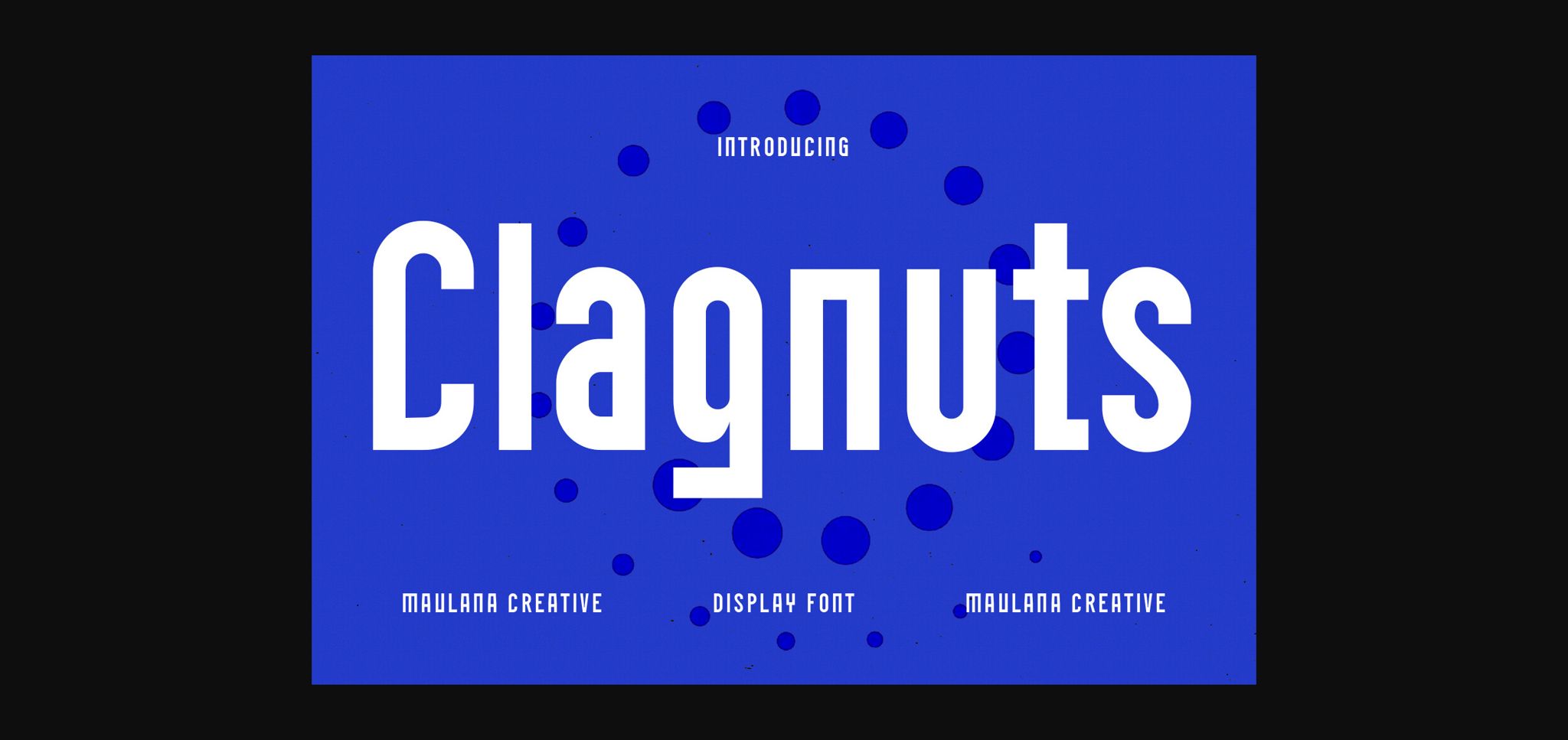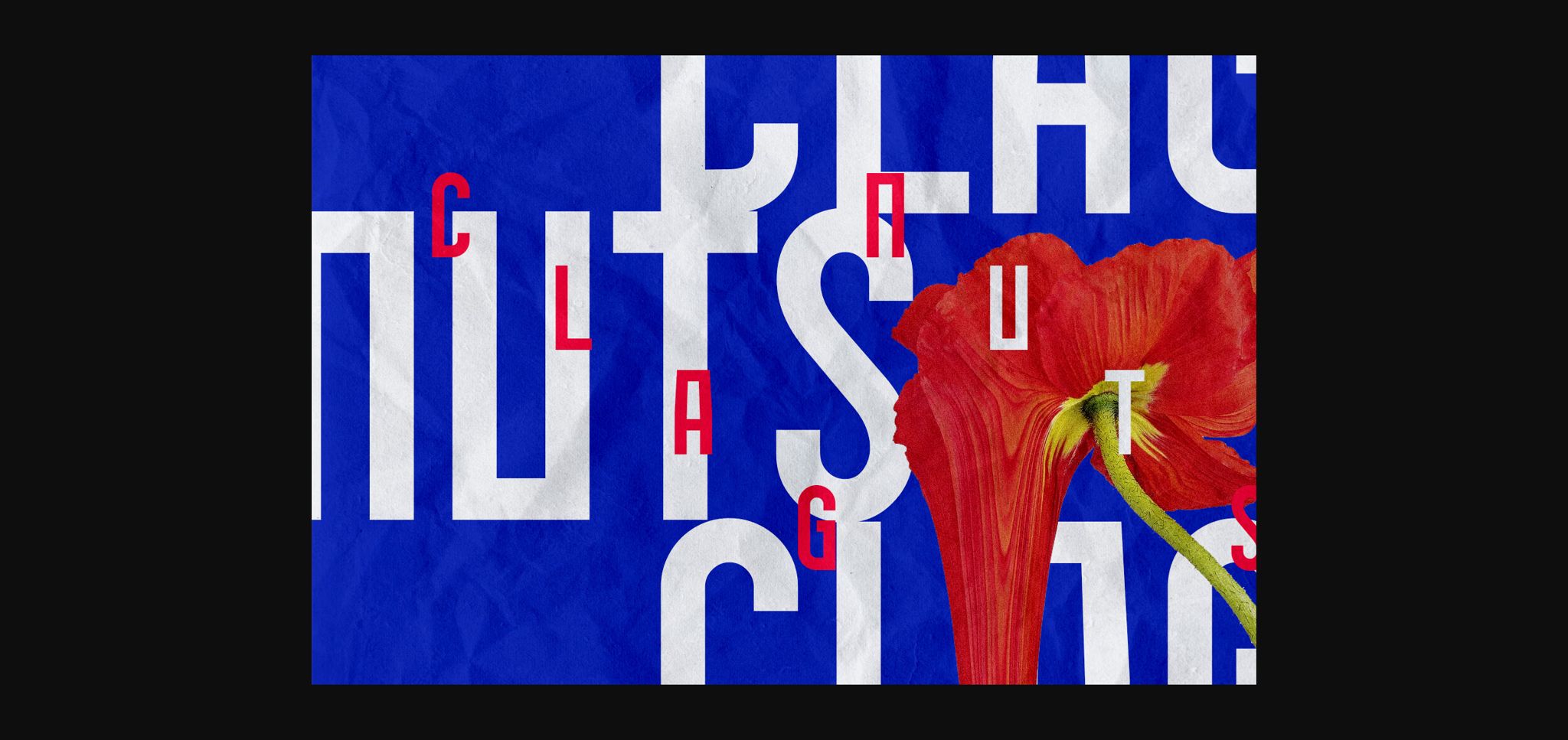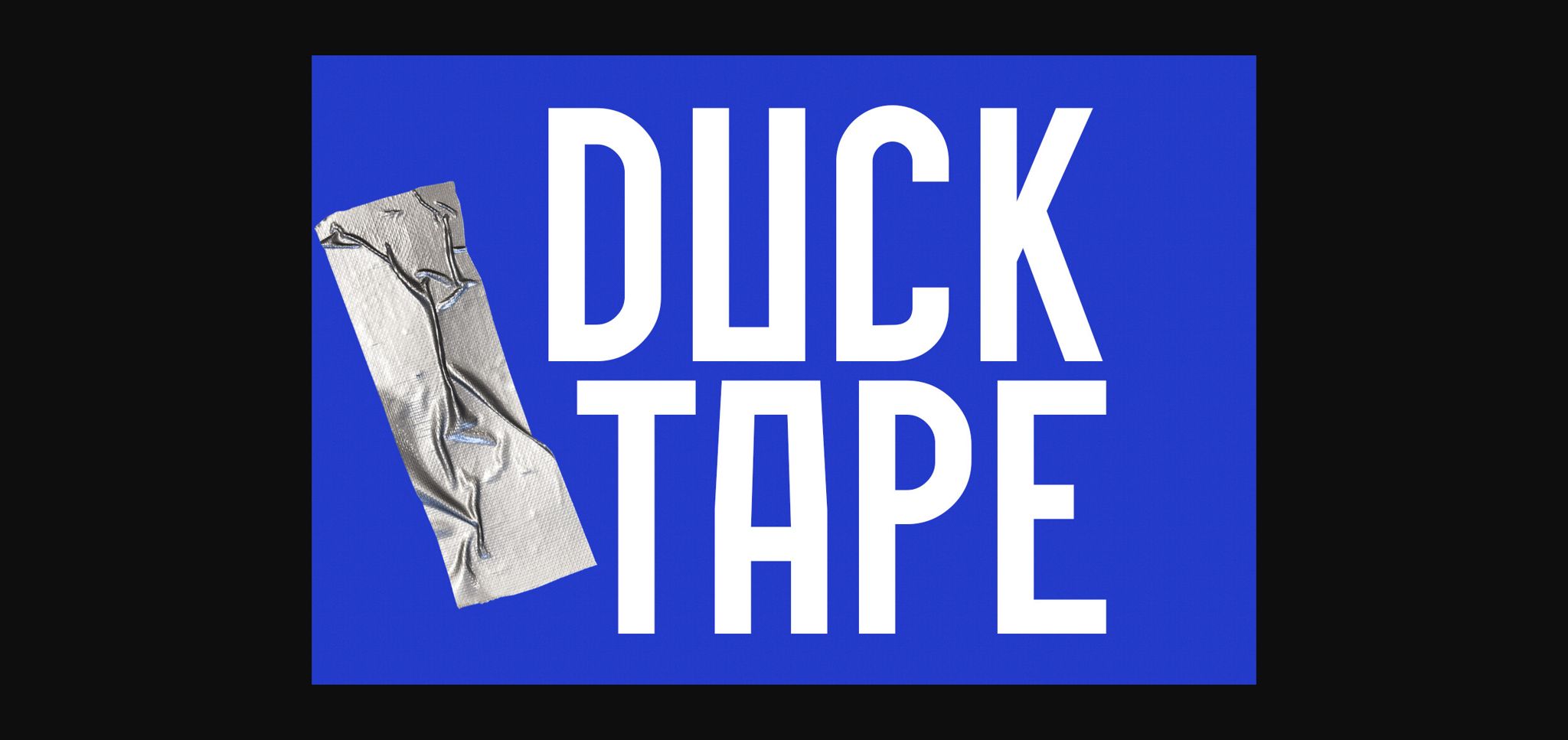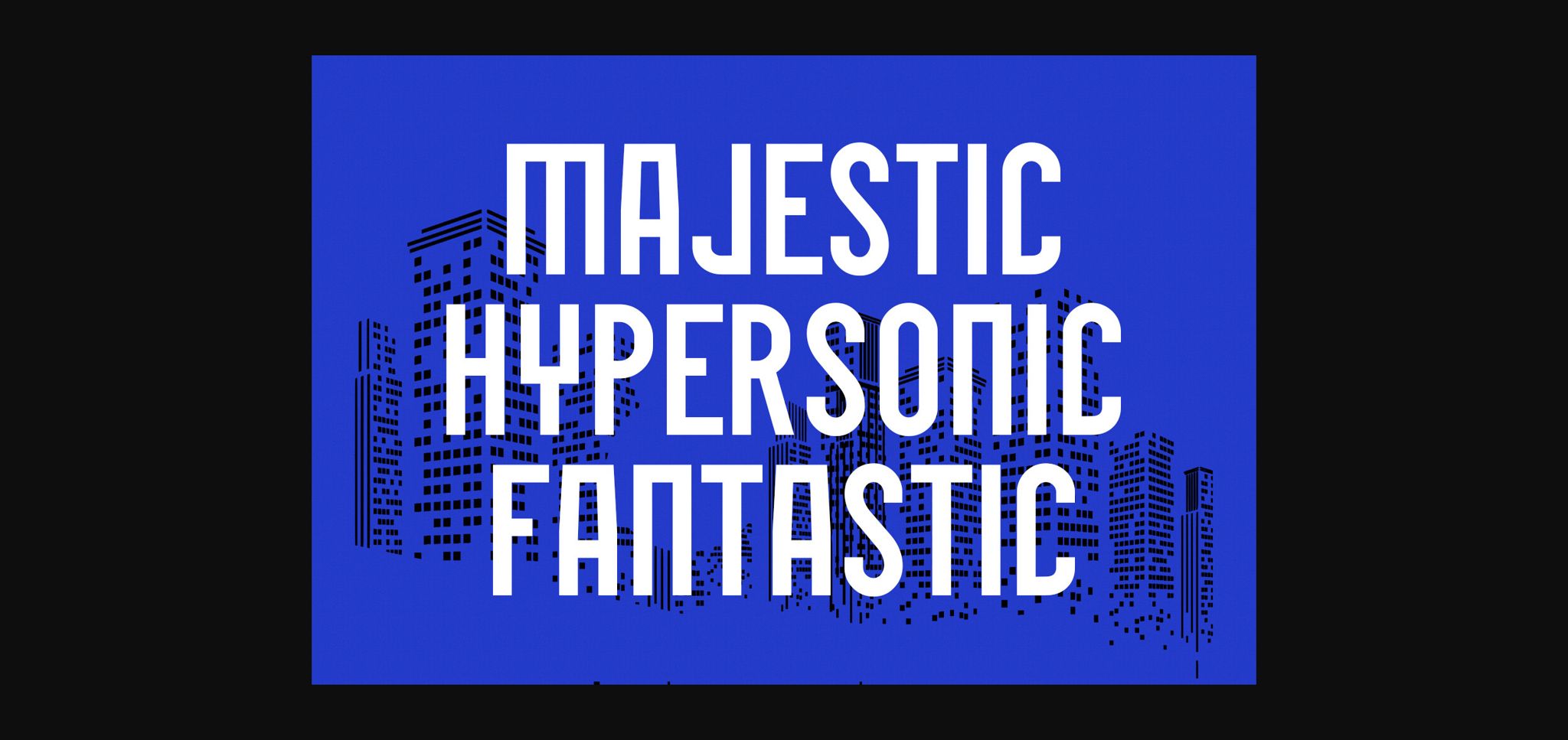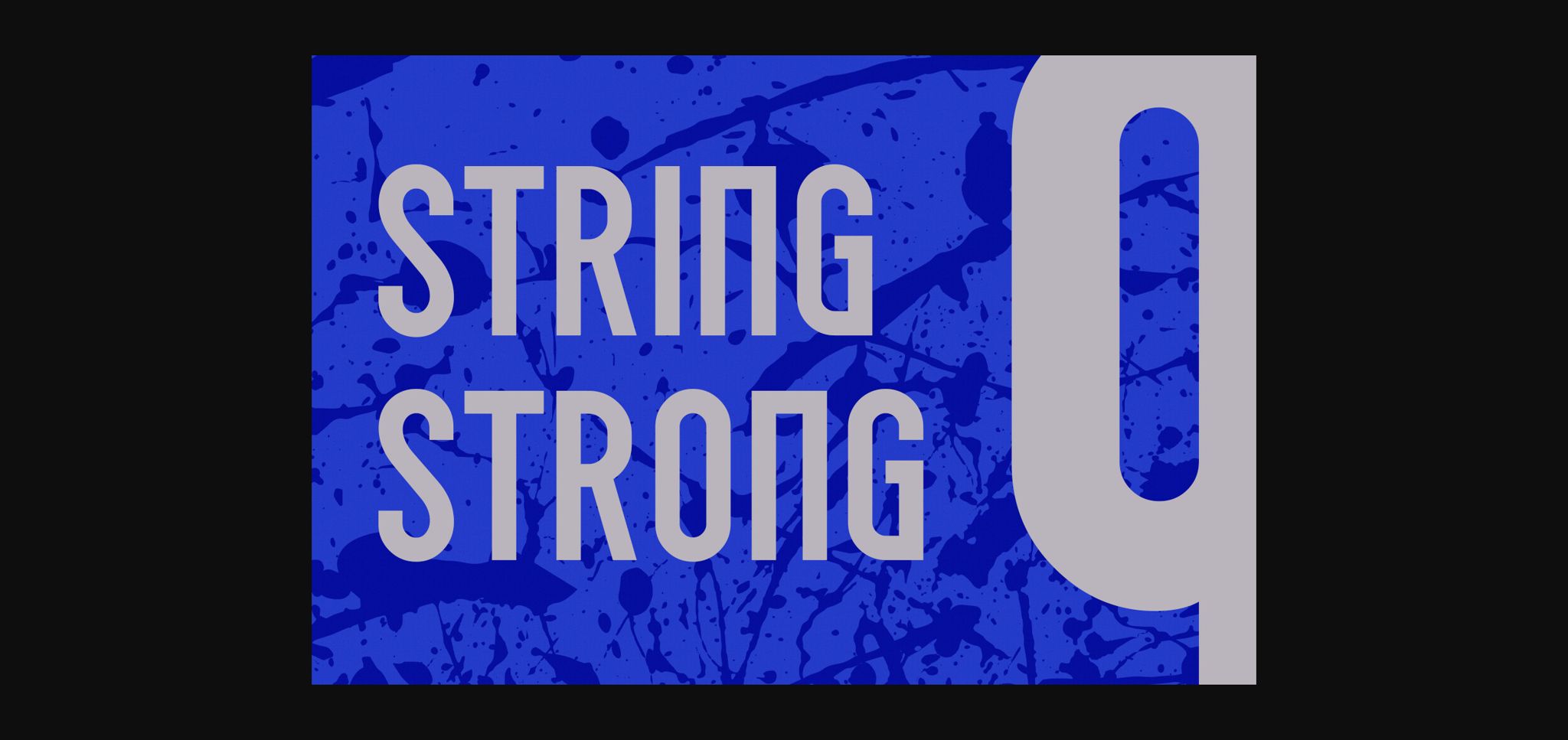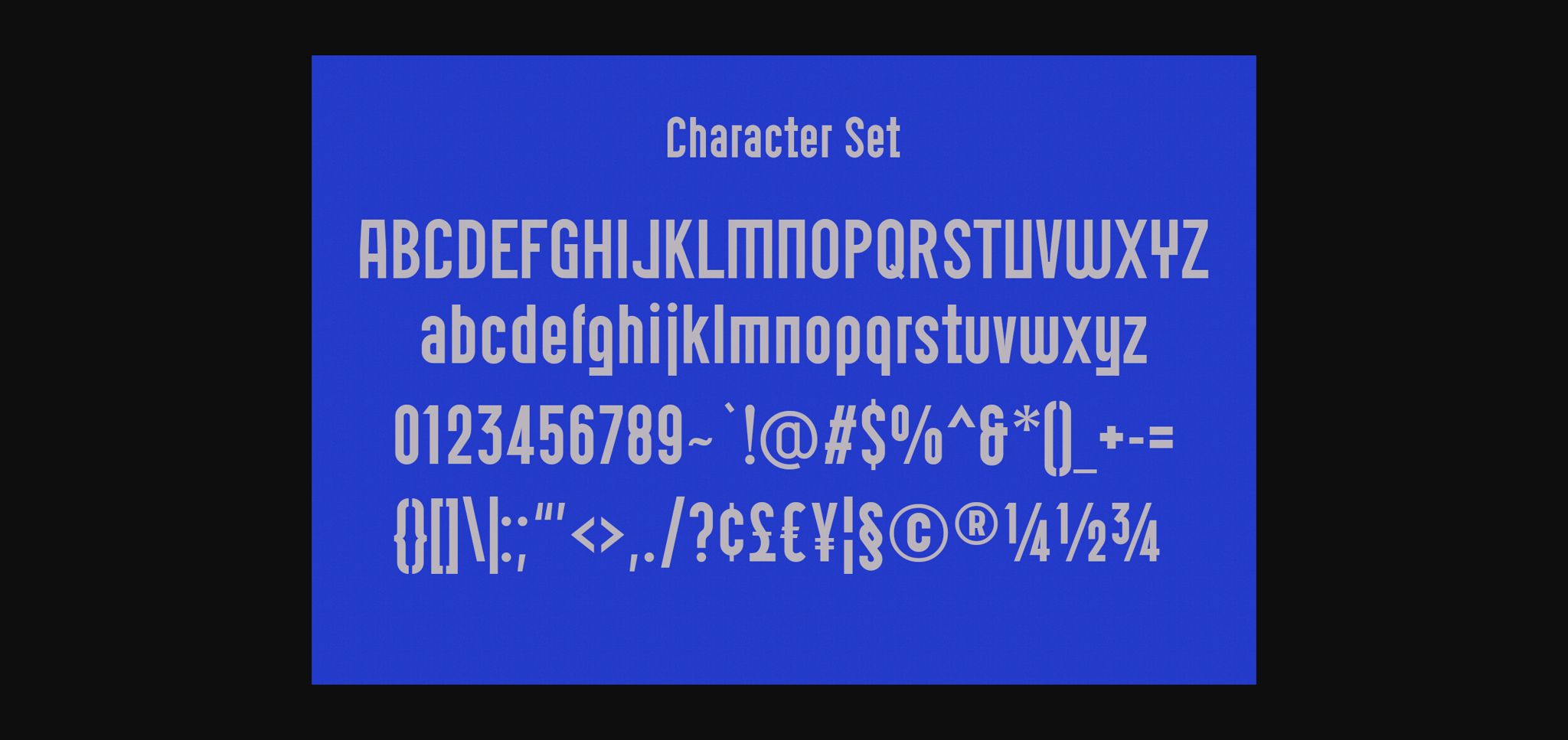
Clagnuts is a Bauhaus-inspired combination with brutalist form flat bar sans display font. Regular stroke, fun character with a bit of ligature and stylistic. To give you extra creative work. Clagnuts font support multilingual more than 100+ language. This font is good for logo design, Social media, Movie Titles, book titles, short text even long text letters, and good for your secondary text font with script or serif. Make a stunning work with Clagnuts font.